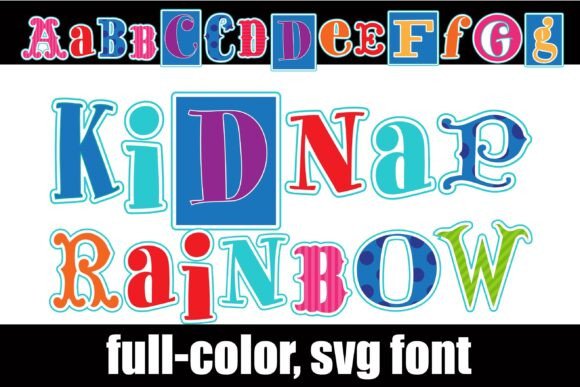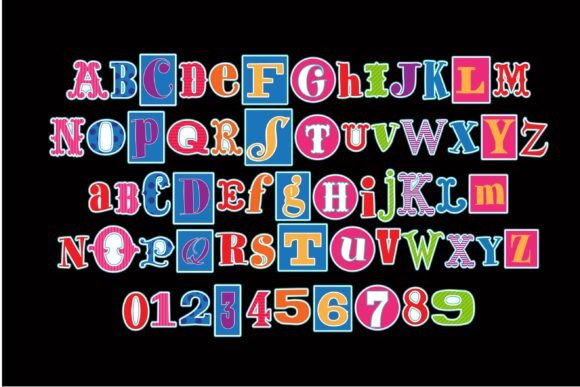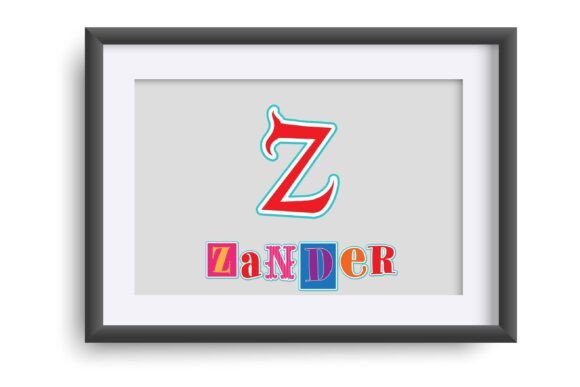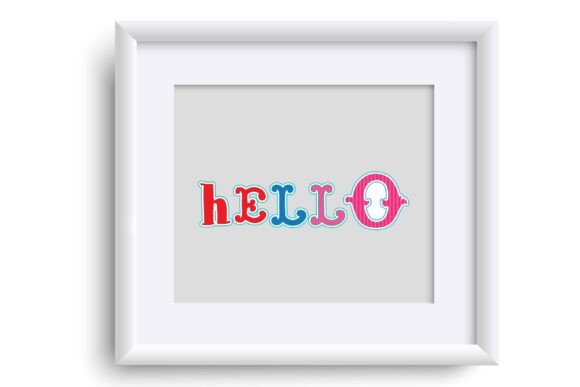
Kidnap Rainbow Font
About the Kidnap Rainbow Font
The Kidnap Rainbow Font offers a perfect balance of form and function for your design needs. This full-color font features a mix of font styles in a ransom note style. There is an alt case of additional colors of each letter that you can access through your system or Silhouette’s glyph map.